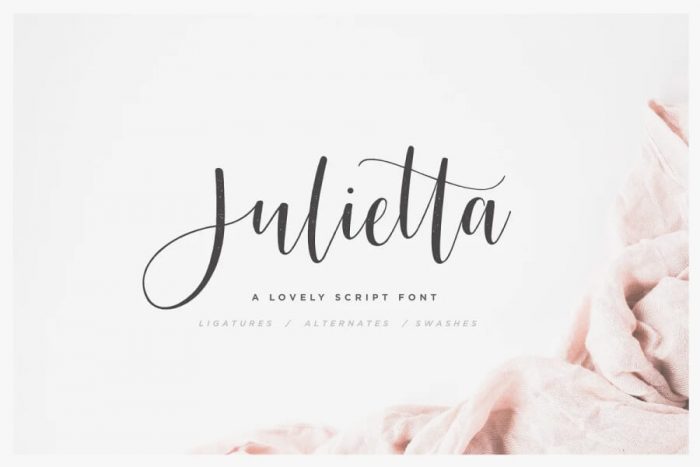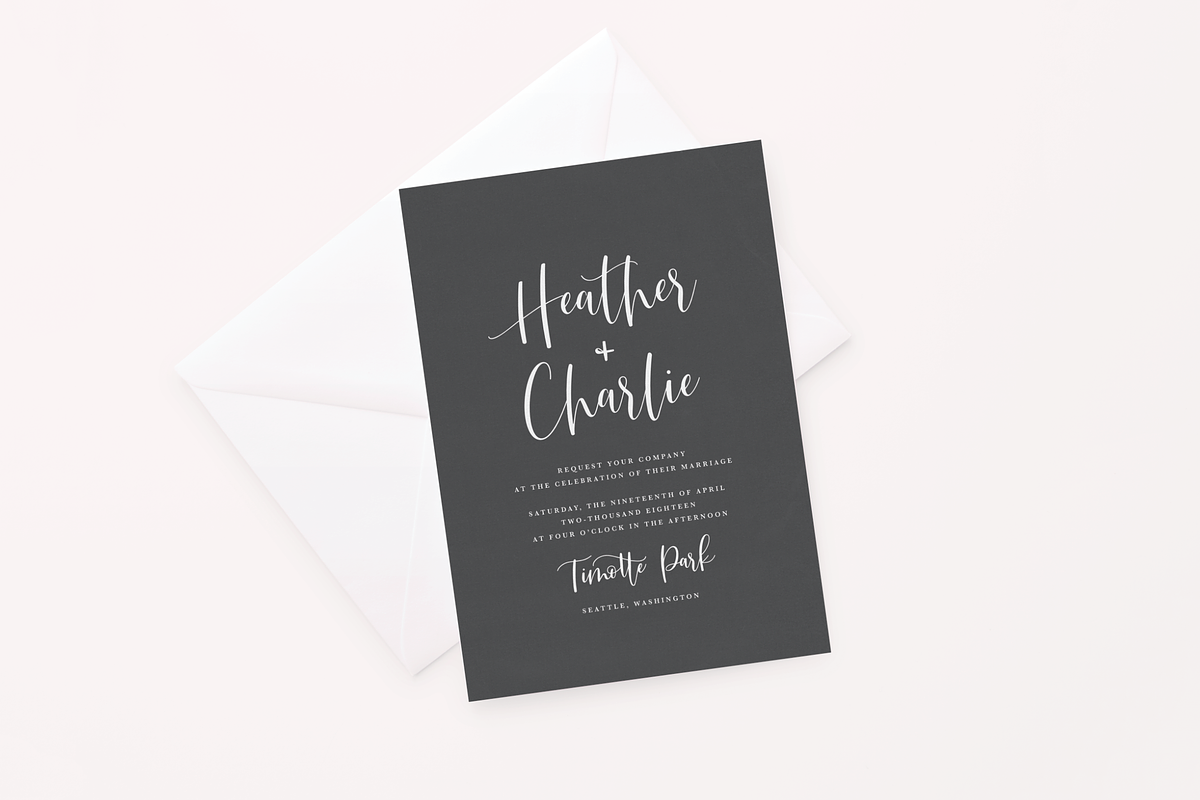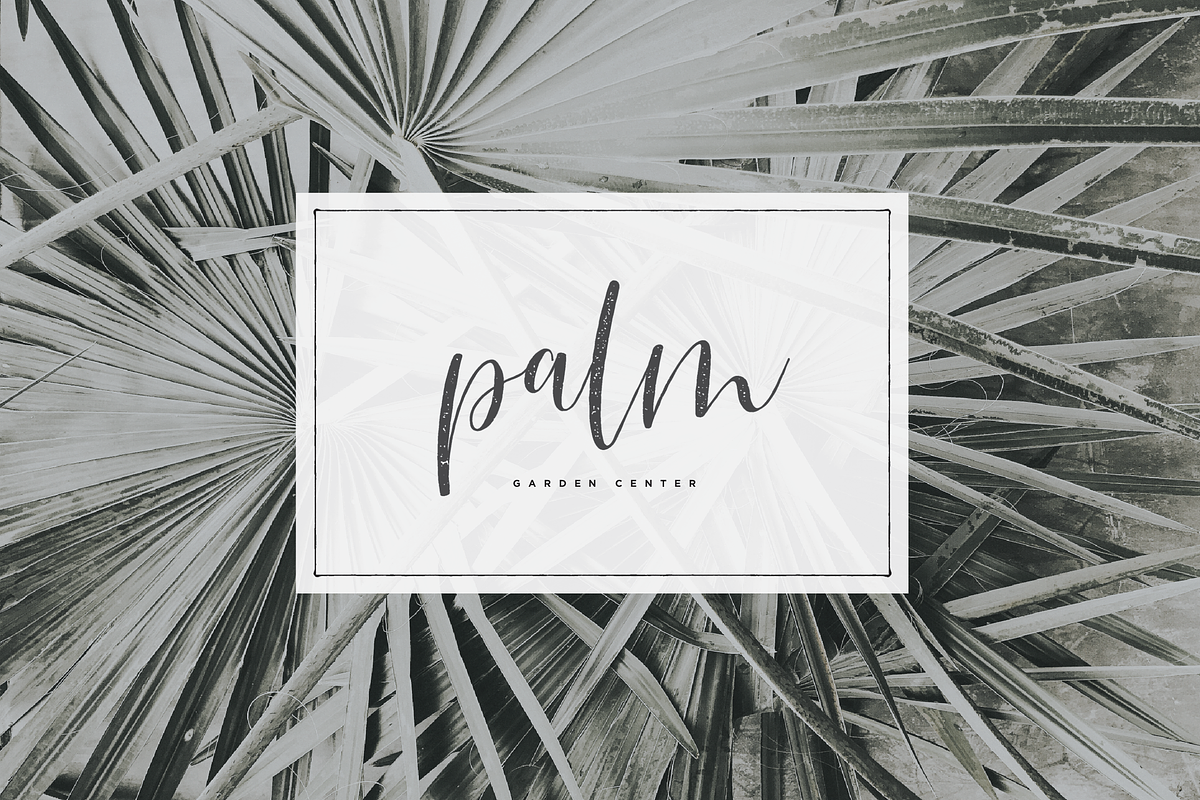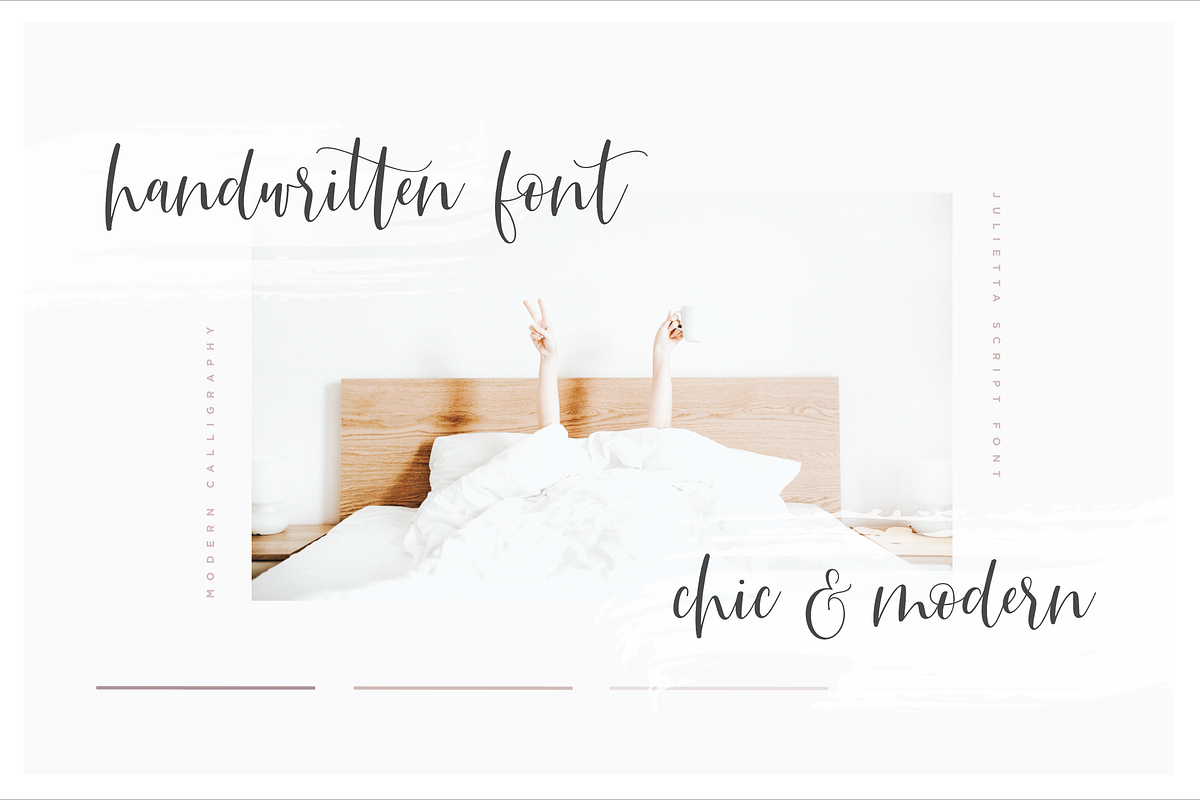
Introducing the lovely new Julietta Script Font! The font was built with OpenType features and includes beginning and ending swashes, numbers, punctuation, alternates, ligatures and it also supports other languages.
It can be used for a variety of projects such as branding, photography, invitations, stationery, wedding designs, social media posts, advertising, product packaging, product design and other romantic projects.